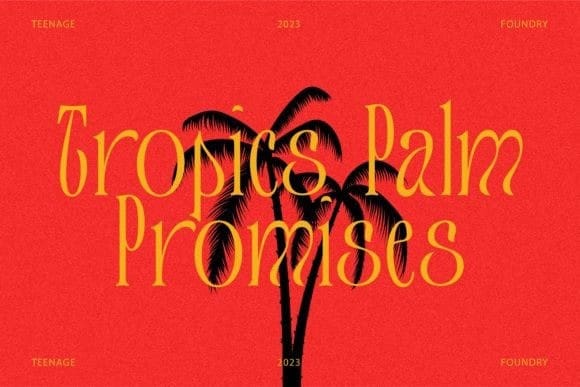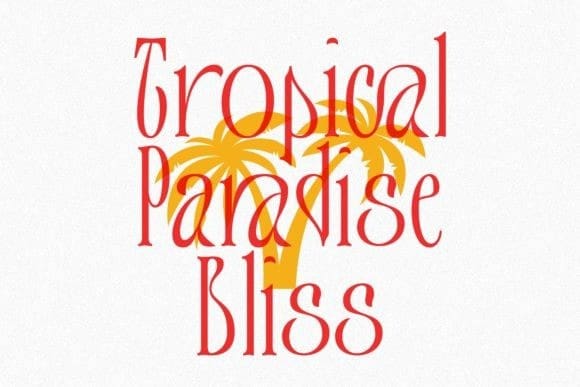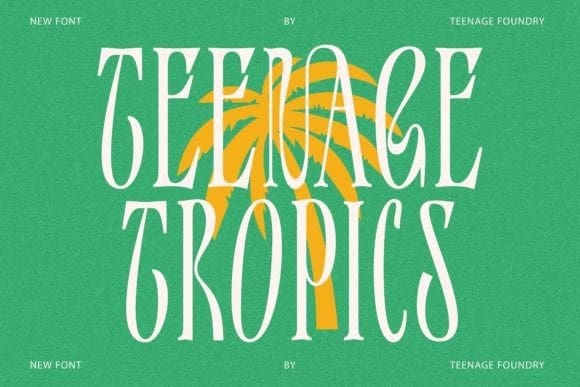
Teenage Tropics Font
Teenage Tropics Font is a vintage typeface display font that exudes a unique blend of retro style and tropical vibes. This font is designed to capture the essence of the 1950s and 1960s, with its bold and playful letterforms that are reminiscent of old-school signages and advertisements. The characters have an artistic touch, featuring curved lines and ornate flourishes that add a sense of whimsy and nostalgia.
Teenage Tropics is perfect for projects that aim to evoke a sense of fun, adventure, and a retro aesthetic, such as retro-themed designs, vintage-inspired logos, posters, and packaging.